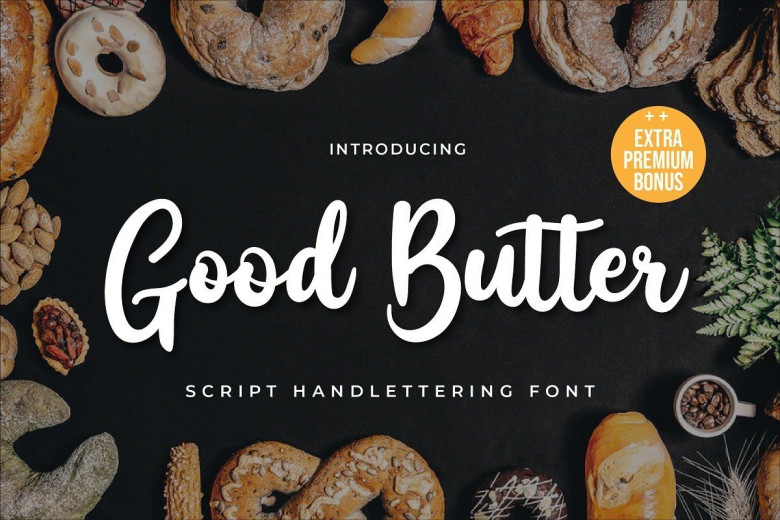
Good Butter Handwritten Script Font
Good Butter Script Font was made with original hand-drawn strokes, featuring a relaxed and elegant feel. This font also offers a beautiful and abstract typographic harmony, which works great in a variety of designs, both formal and informal.